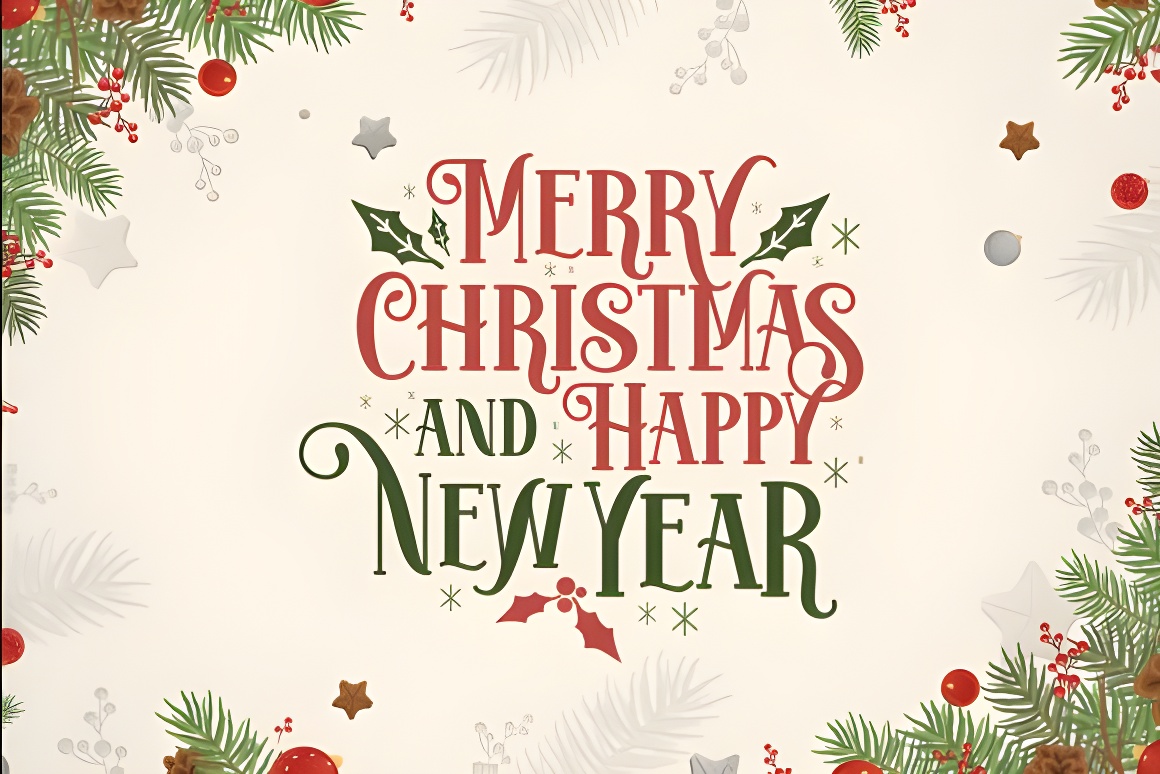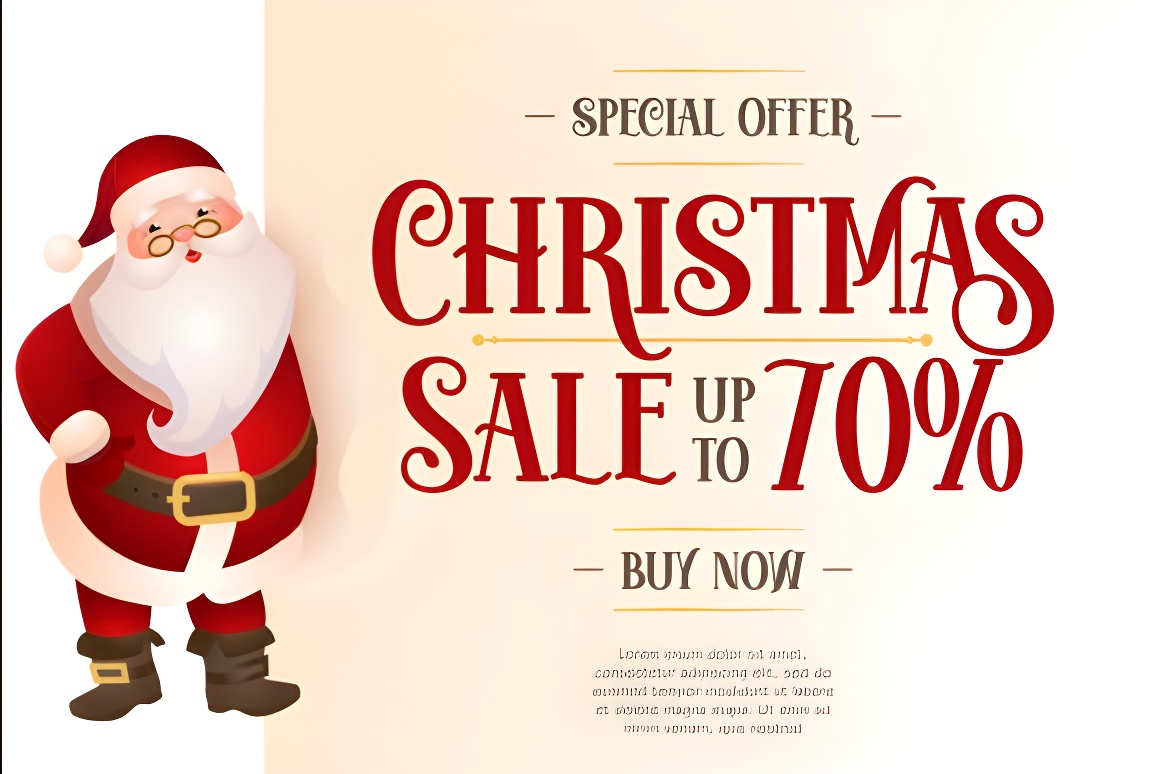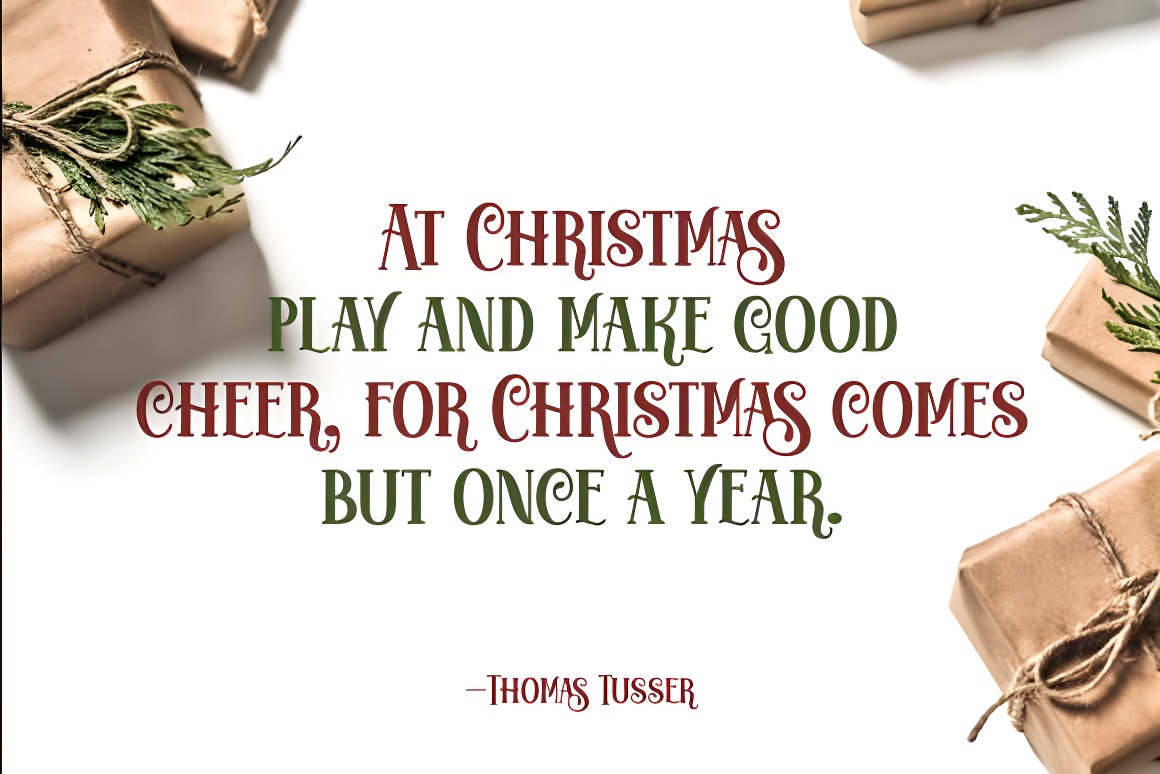
Festive Christmas Font | Joyful Holiday Display Typeface
Festive display font perfect for Christmas cards, invitations & holiday designs. Adds joyful typography to winter decorations, gifts & merry projects!